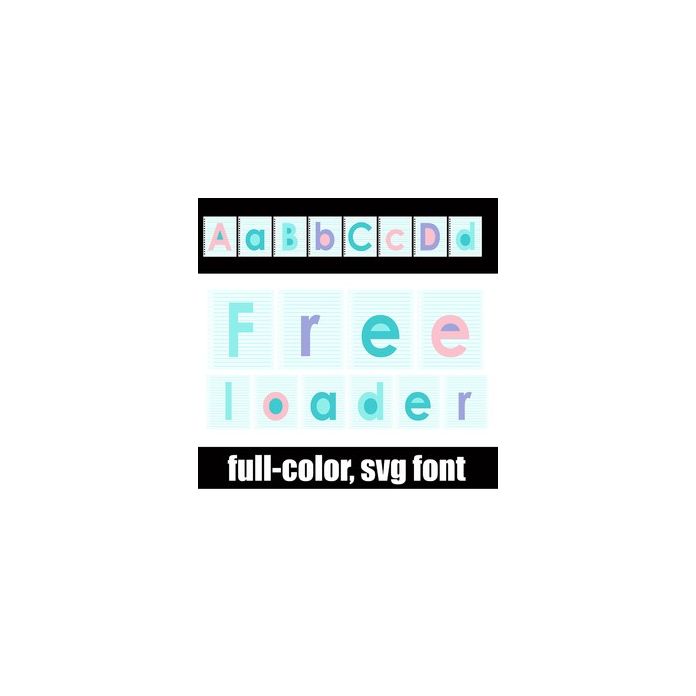
This full-color font features sans serif lettering on little lined notes in a pastel color palette. There is a secondary color of each letter you can access through your system's or Silhouette's glyph map.